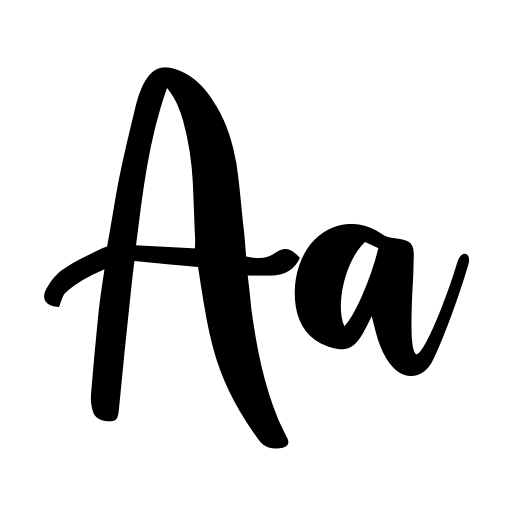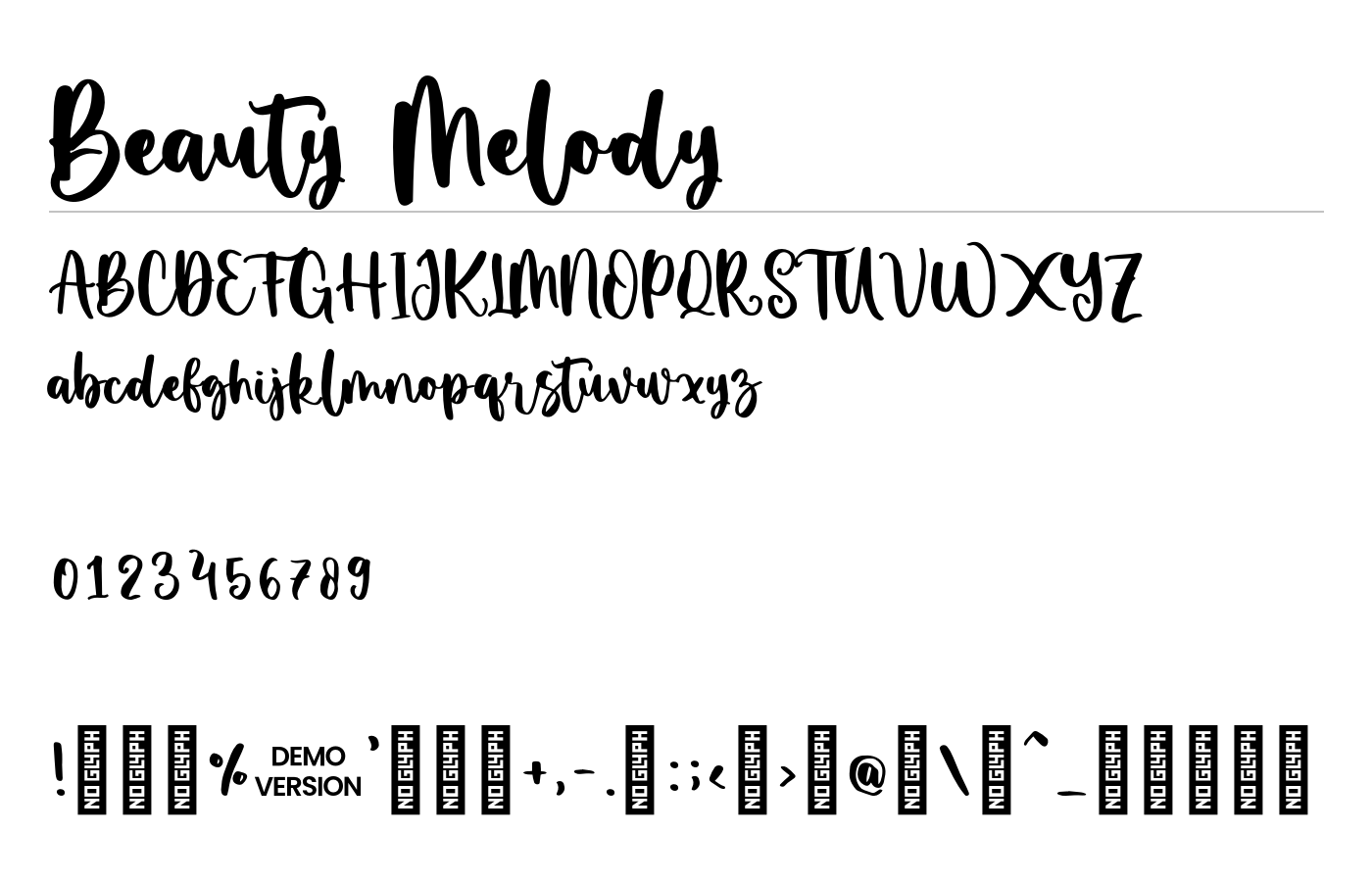
Beauty Melody is a lively and charming script font with a hand-drawn feel, featuring smooth, rounded strokes and playful letterforms that bring warmth and personality. Its medium weight and natural flow make it perfect for branding, invitations, and creative projects seeking a friendly, approachable, yet elegant look. This font works wonderfully for designs that want to convey a sense of creativity and personal touch, such as beauty products, fashion, and boutique logos.
Beauty Melody Font
About Beauty Melody Font
| Font family | Beauty Melody Font |
| Designer | Hasna |